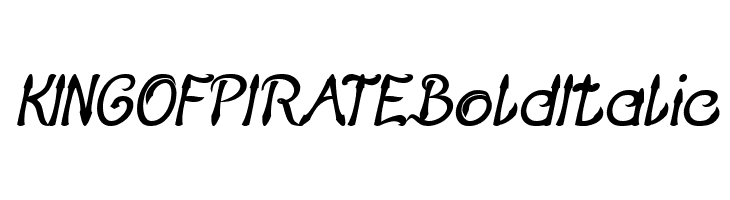
A bold, decorative font with pirate-themed flair and unique embellishments.
A bold, playful font with whimsical, rounded letterforms.
A bold, italic script font with a playful and adventurous style.
A dynamic, italic script font with a handwritten appearance.
A whimsical, pirate-themed font with exaggerated curves and sharp edges.
A whimsical, pirate-themed font with playful, hand-drawn characters.